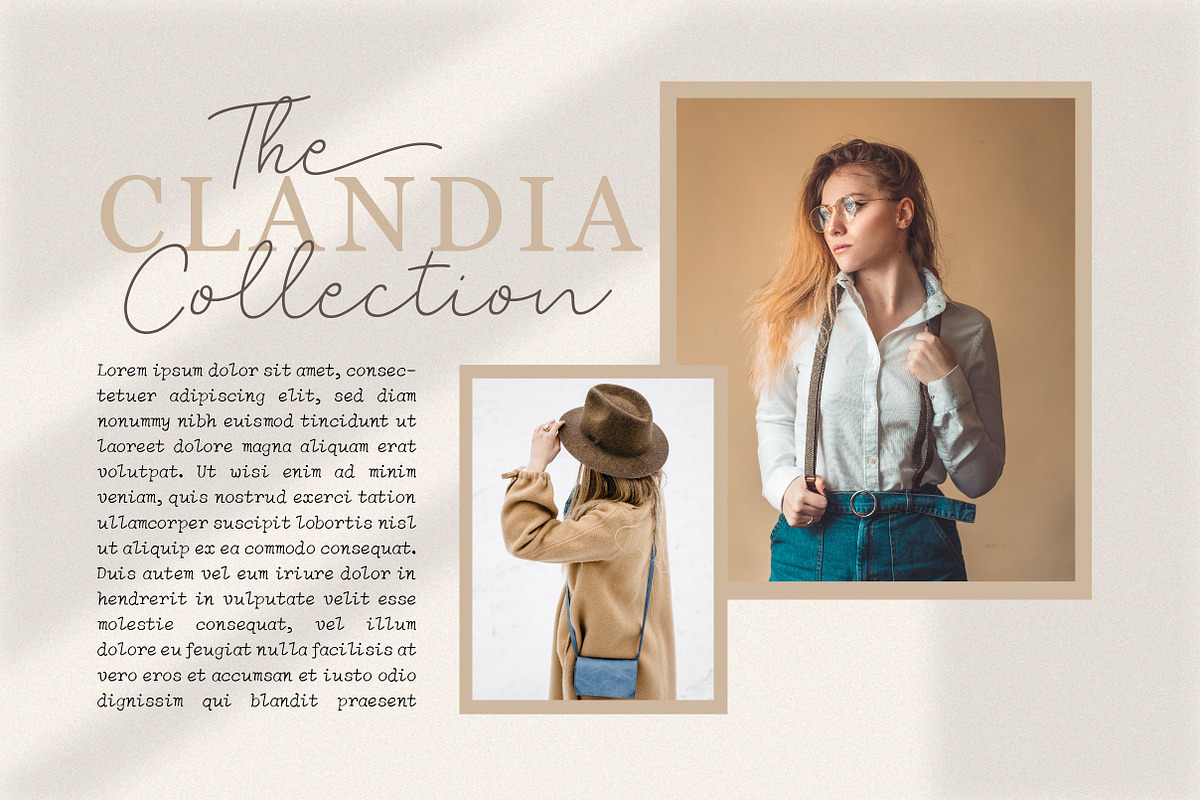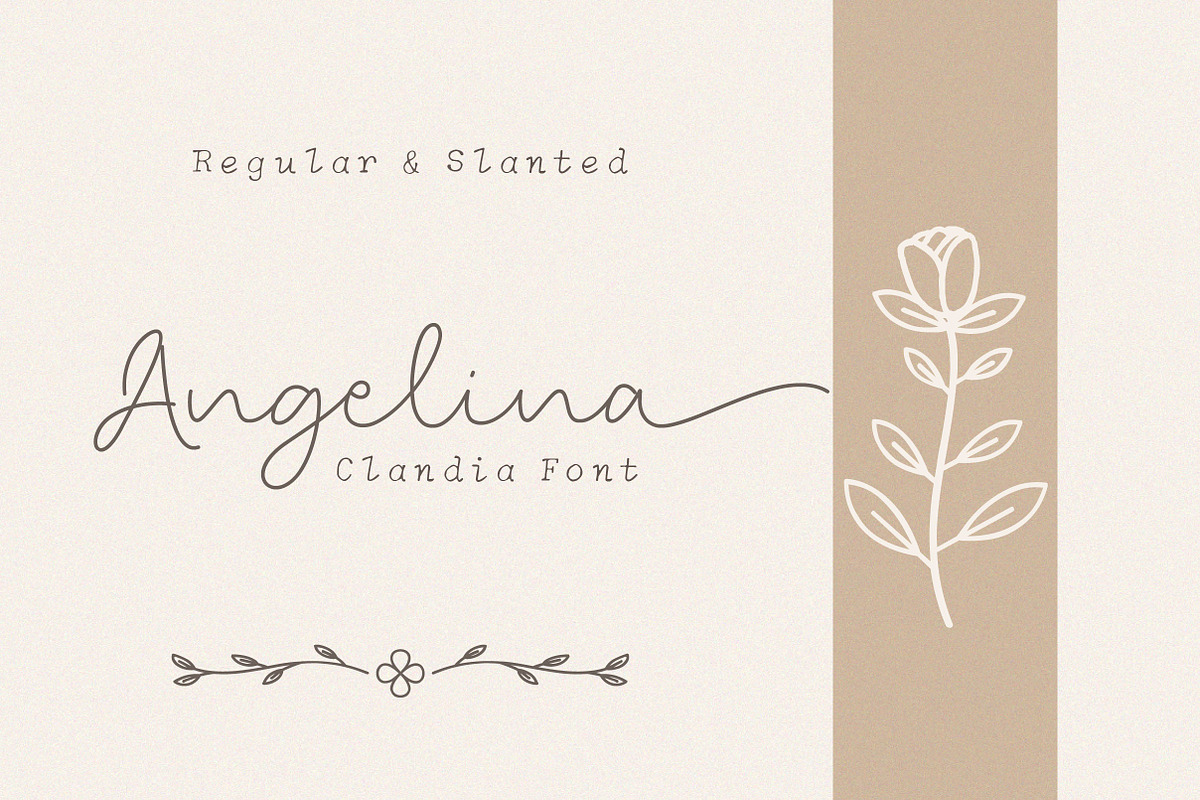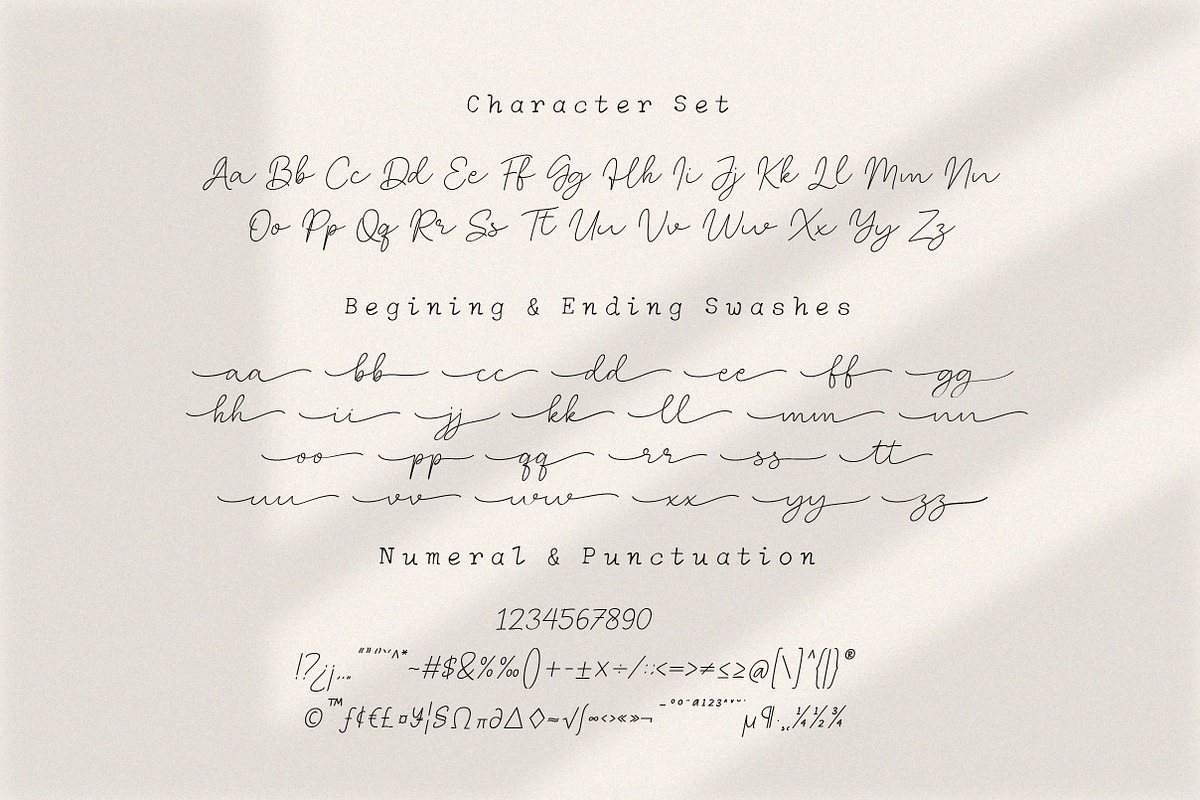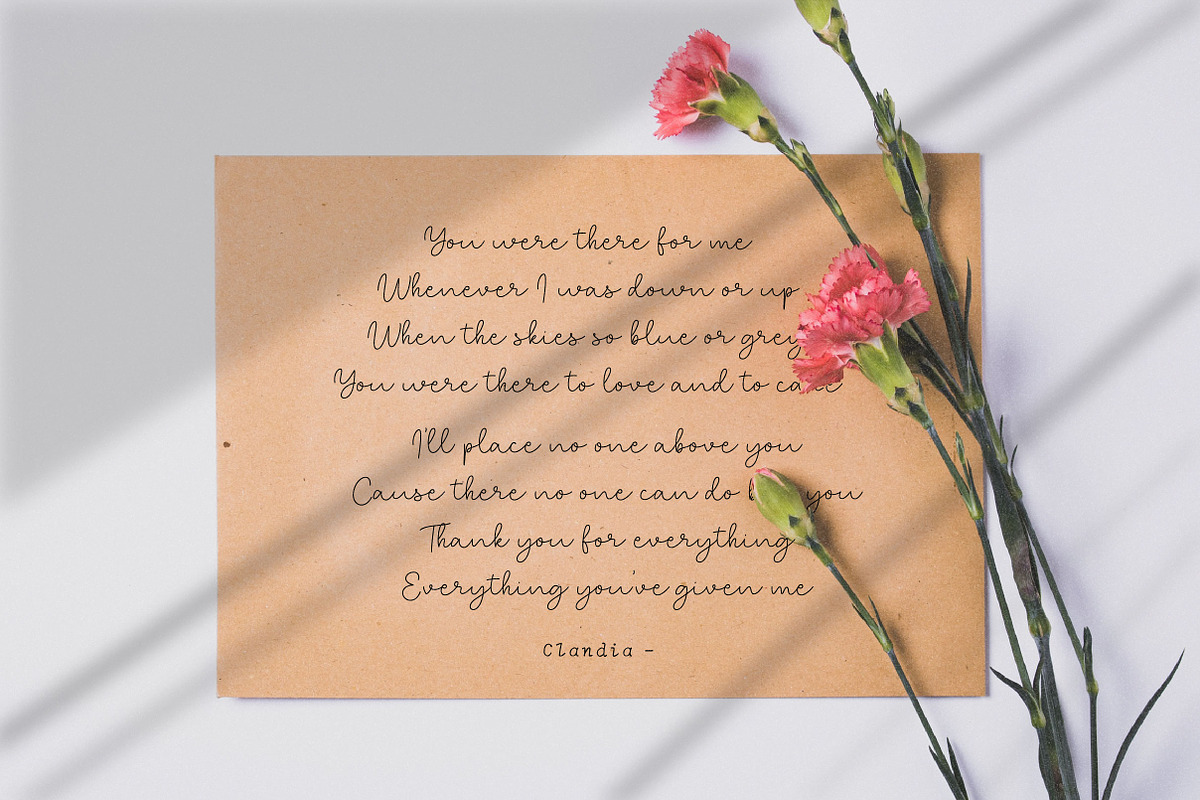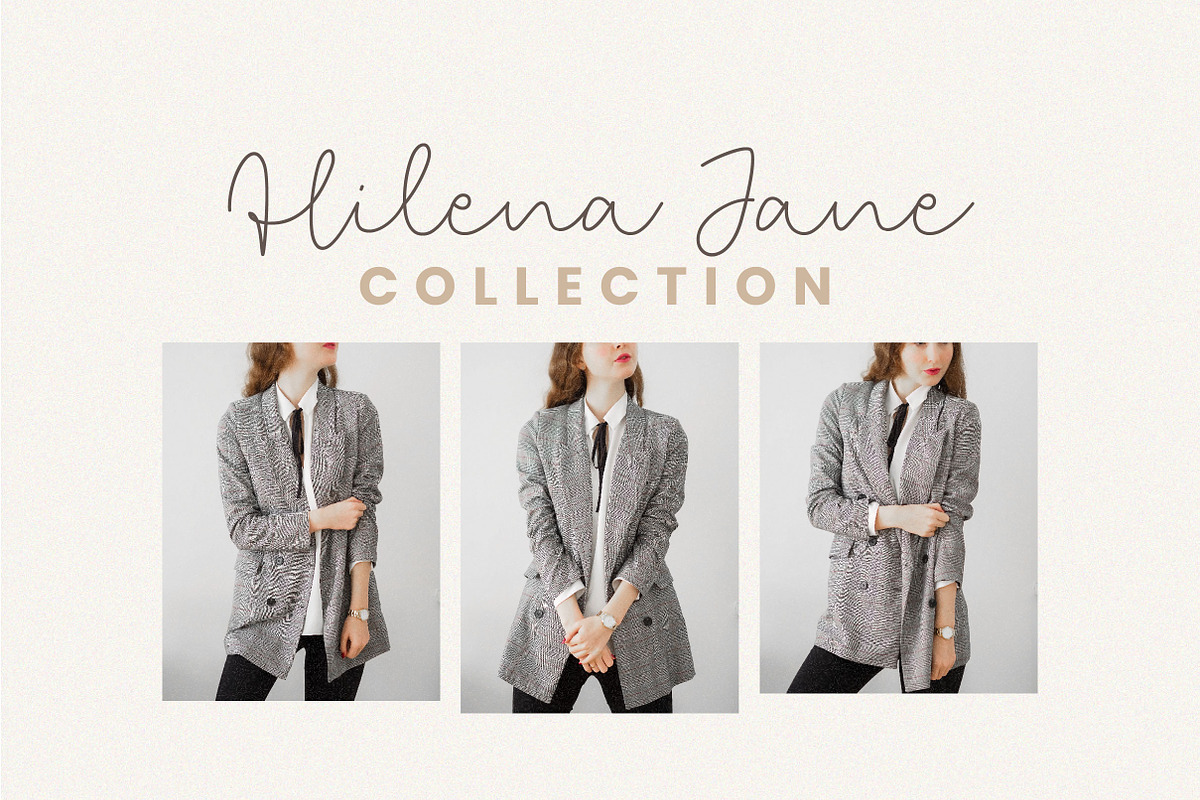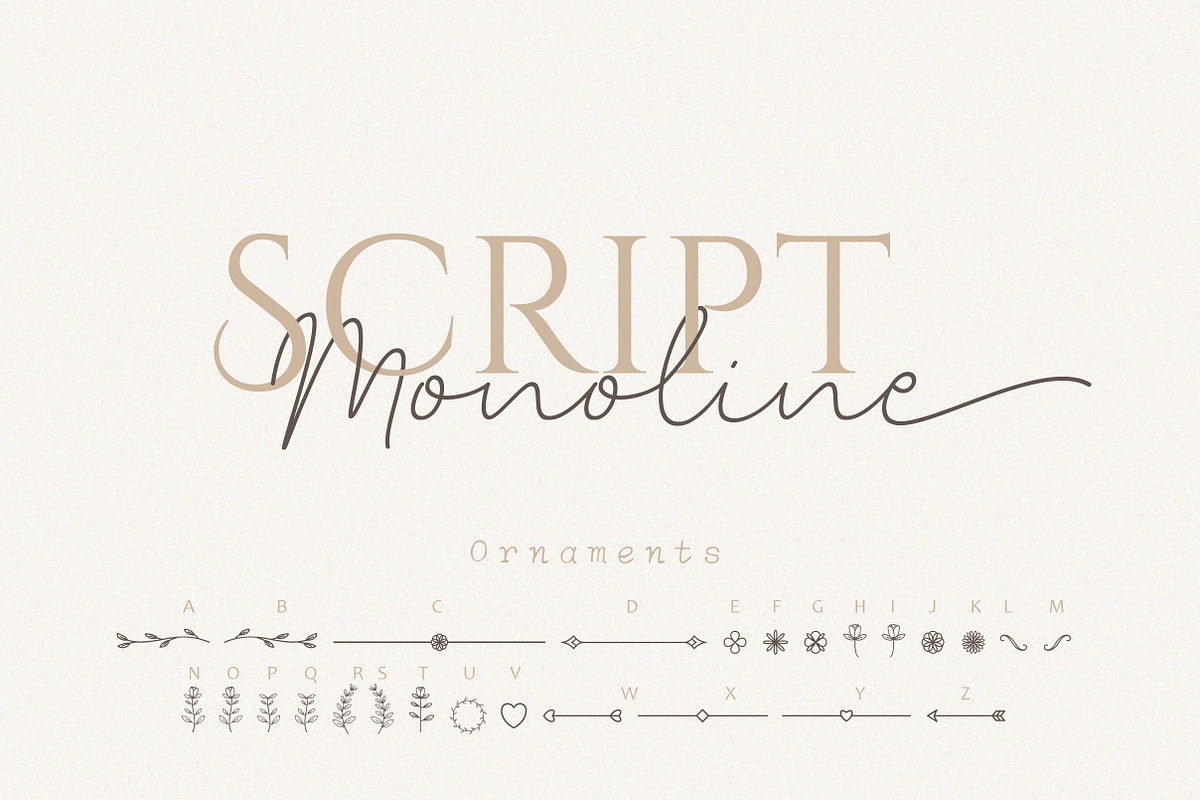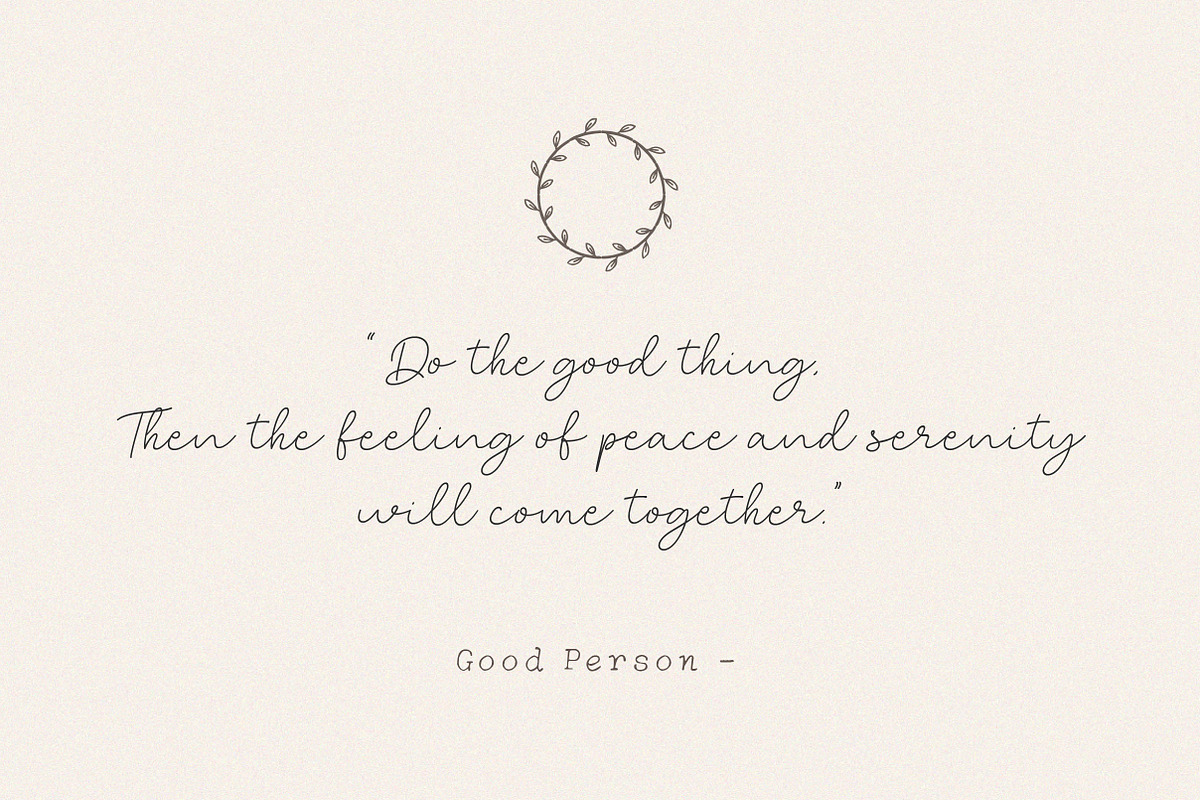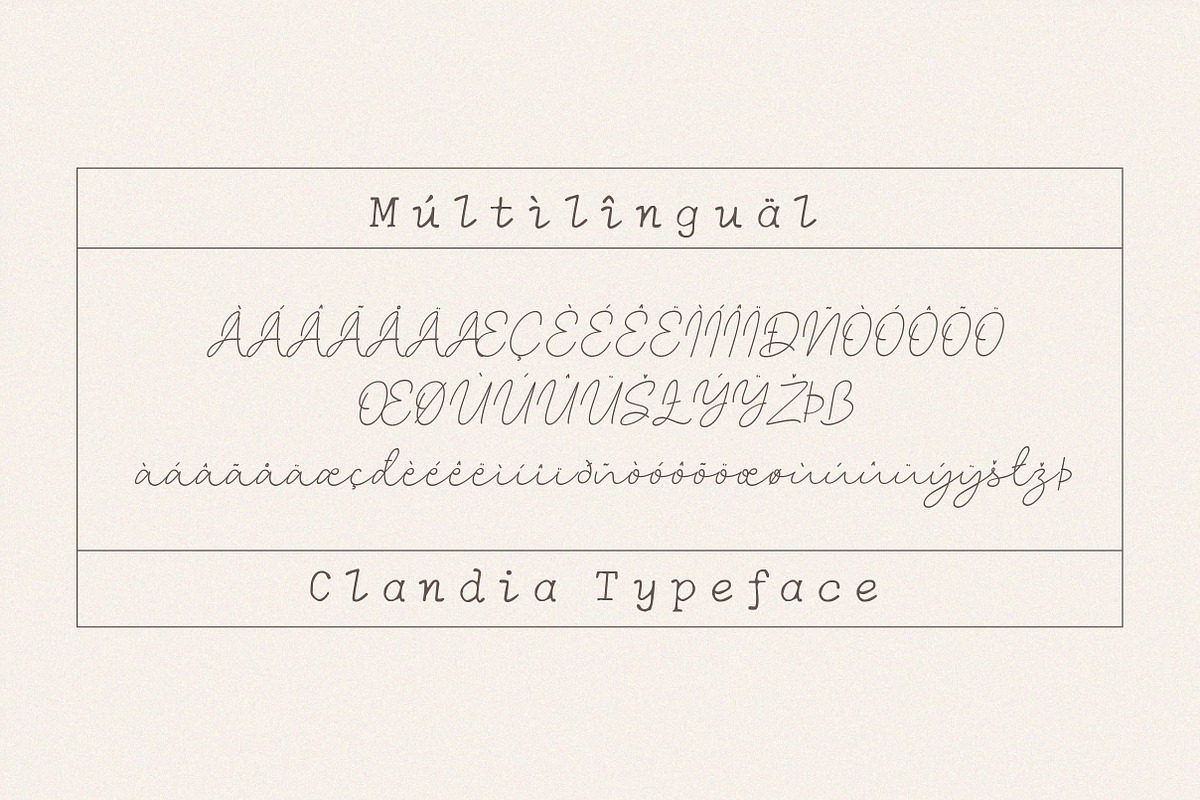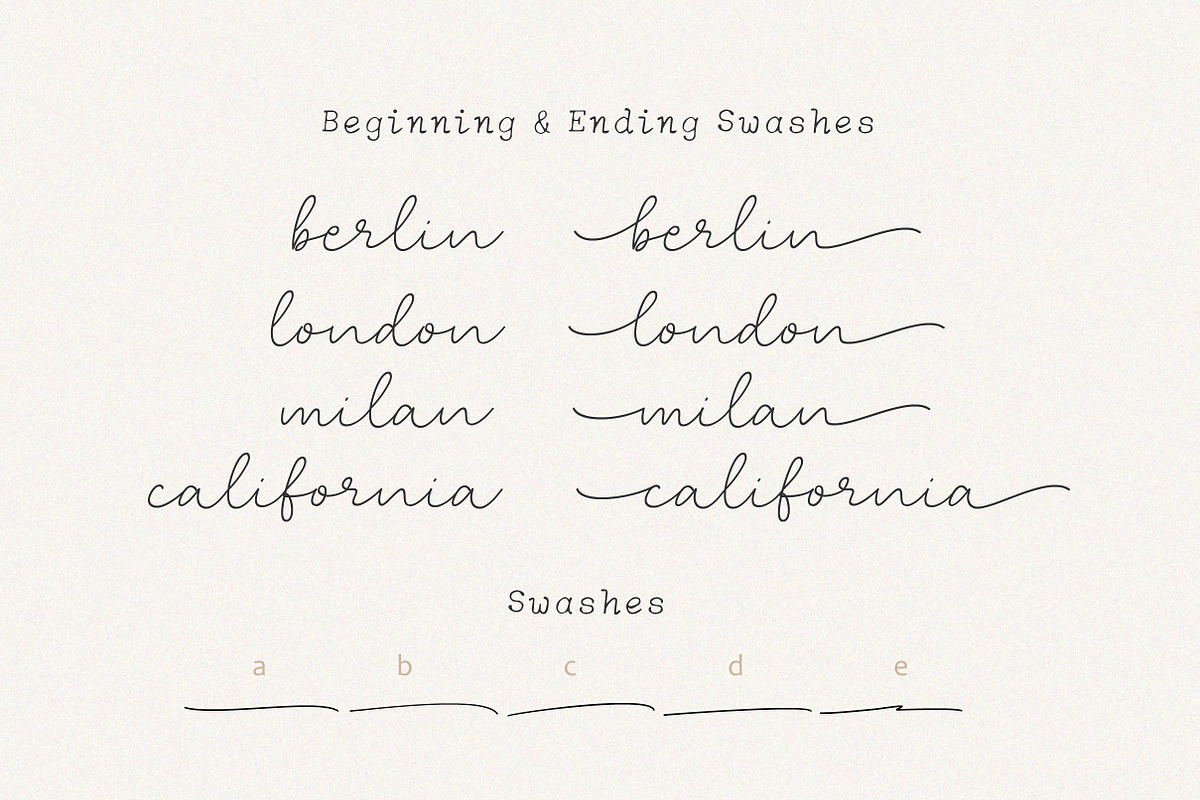
Clandia Monoline Script & Ornaments
Clandia is a versatile monoline script font. Complete with ornaments beginning and ending swashes, perfect to create gorgeous wedding invitations, beautiful stationary art, eye-catching social media posts and more!
To use the ending swashes you don't need to use software that supports opentype, because we have made it separately so it's very easy to use on Canva.
Features : Ligatures, Alternates ( Beginning & Ending Swashes ), Multilingual, PUA Encoded